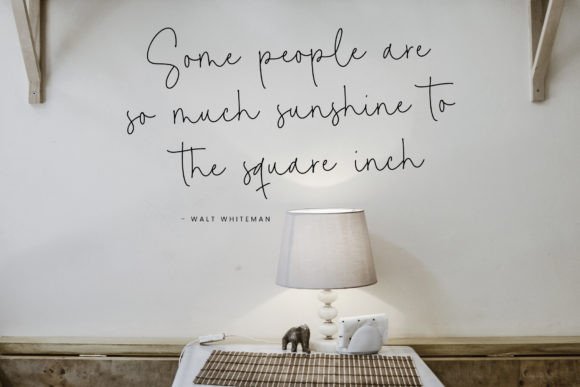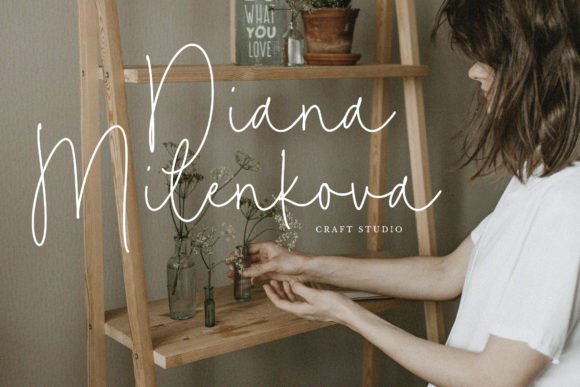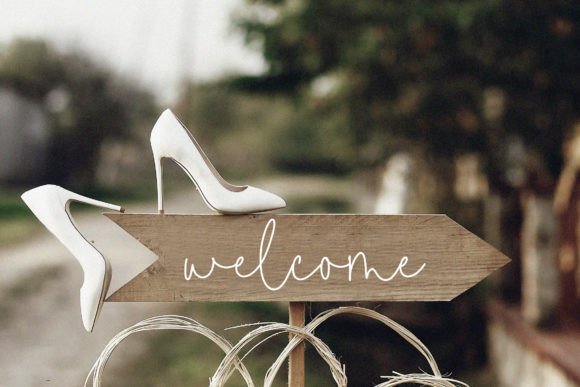
Brittaney Memories Font
Brittaney Memories A Handwritten Script Font, which was created with great care and specially created for you Brittaney Memories is perfect for product packaging, branding project, magazine, social media, weddings, or just used to express words above the background.